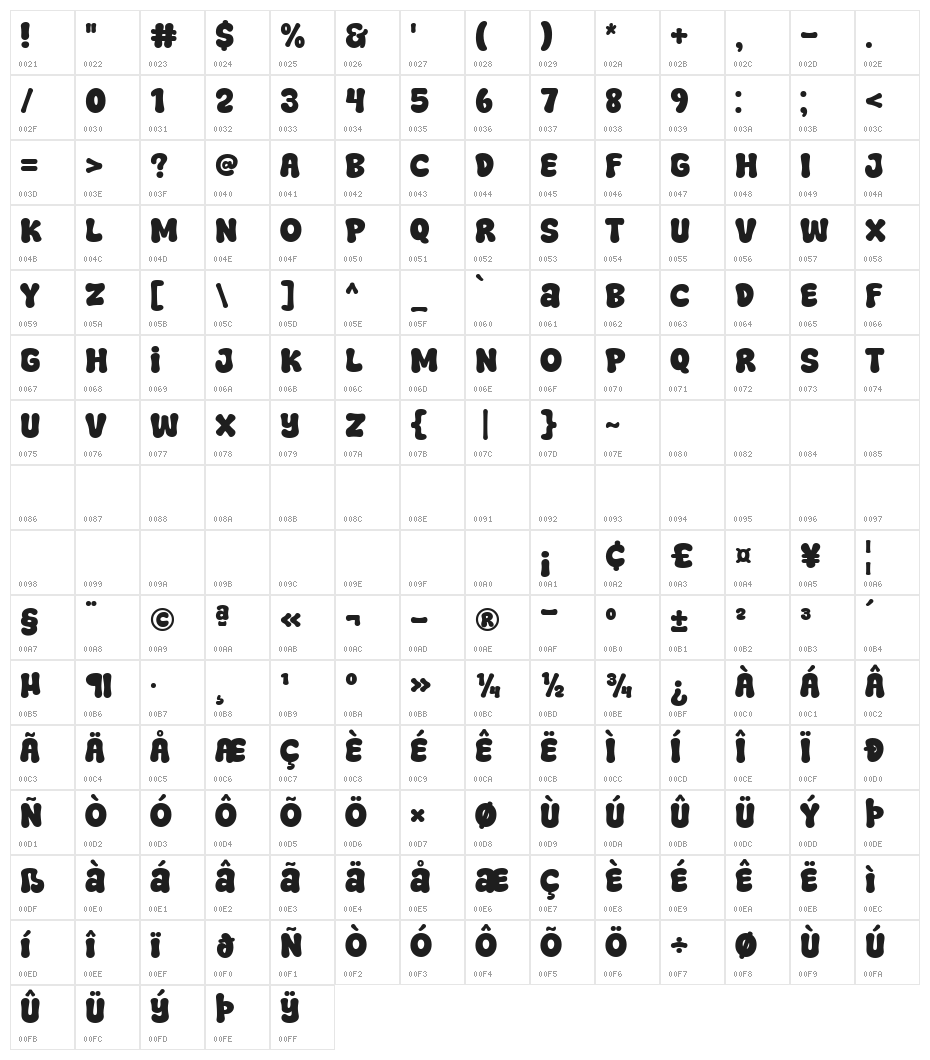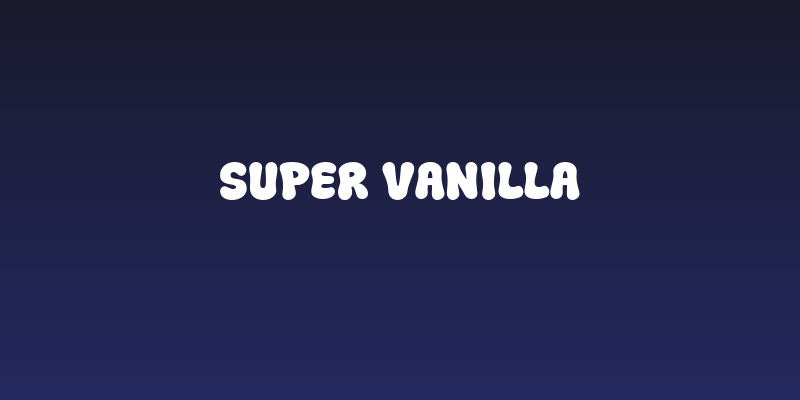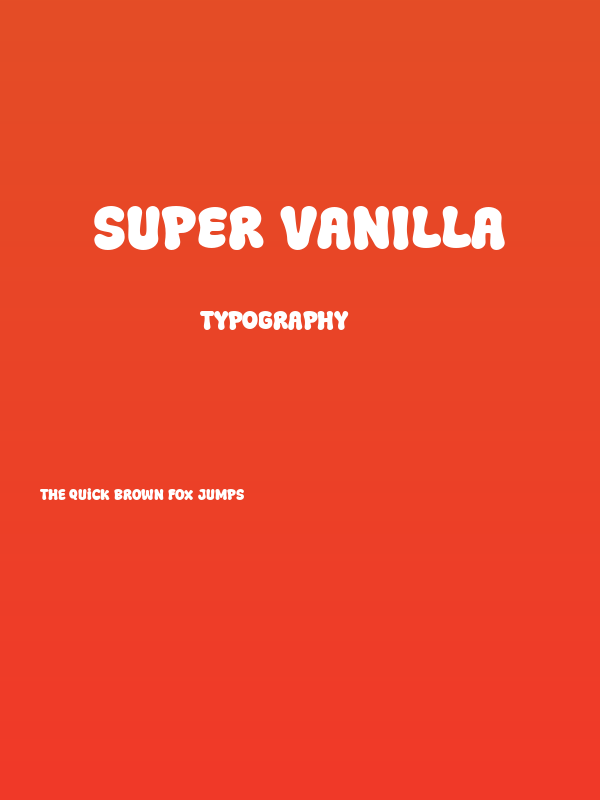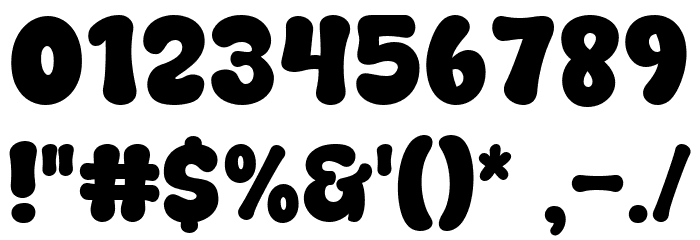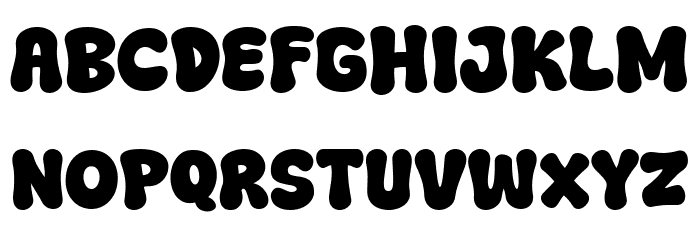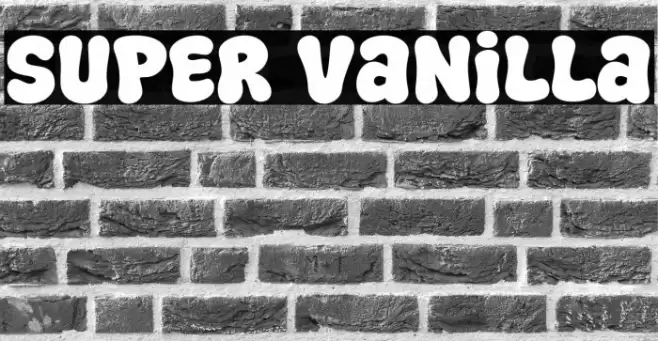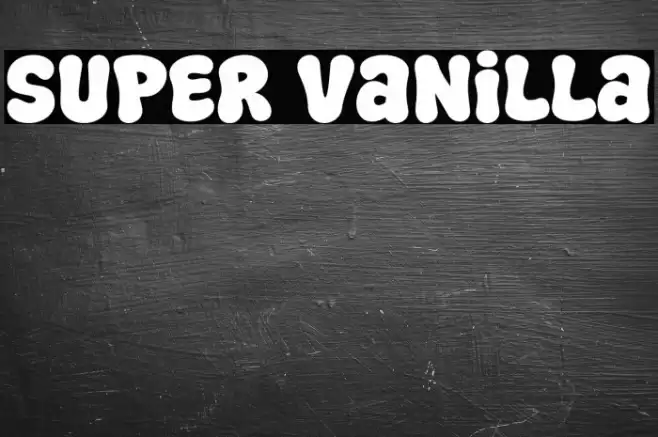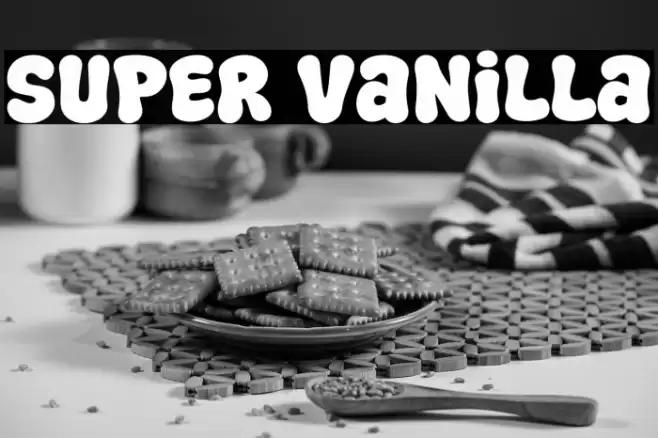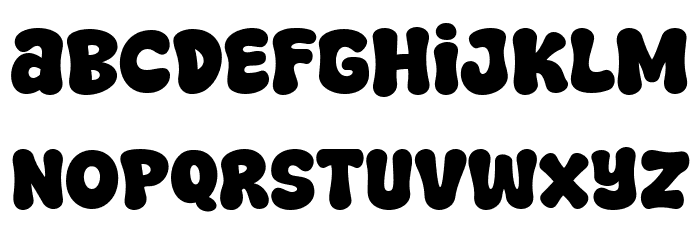
Super Vanilla Font
Super Vanilla Description
This font features a playful and bold design with rounded edges and a bubbly appearance. The characters are thick and uniform, giving a sense of fun and approachability. The uppercase and lowercase letters maintain a consistent style, with a slightly exaggerated width that enhances their whimsical nature. Numbers and special characters follow the same design principles, ensuring a cohesive look across all glyphs. The font's overall style is reminiscent of retro or vintage designs, making it suitable for projects that require a touch of nostalgia or a lighthearted feel.
| Proposed Projects | Ideal for children's books, playful branding, retro-themed designs, and party invitations. |